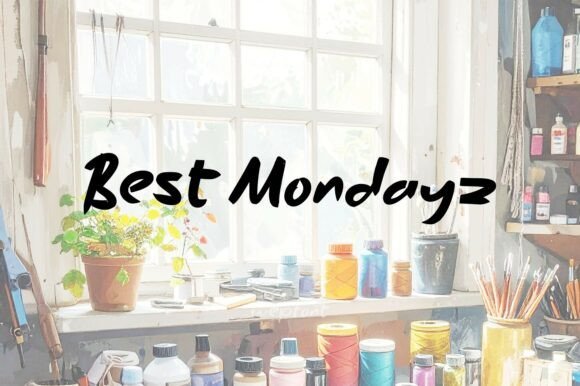
Introduction to Best Mondayz Font
β€œBest Mondayz” is an effervescent brush script font that bubbles with the energetic optimism of a fresh start.
This zest-filled font infuses designs with warmth, personality, and a hand-drawn charm Its playful irregularities and shifting character heights lend a breath of life to each word, crafting a charmingly organic appearance.
Key Features of Best Mondayz Font
Why Choose Best Mondayz Font?
Best Mondayz Font offers exceptional quality and versatility, making it a valuable addition to your design toolkit. Whether you’re creating for personal projects or commercial use, Best Mondayz Font delivers professional results.